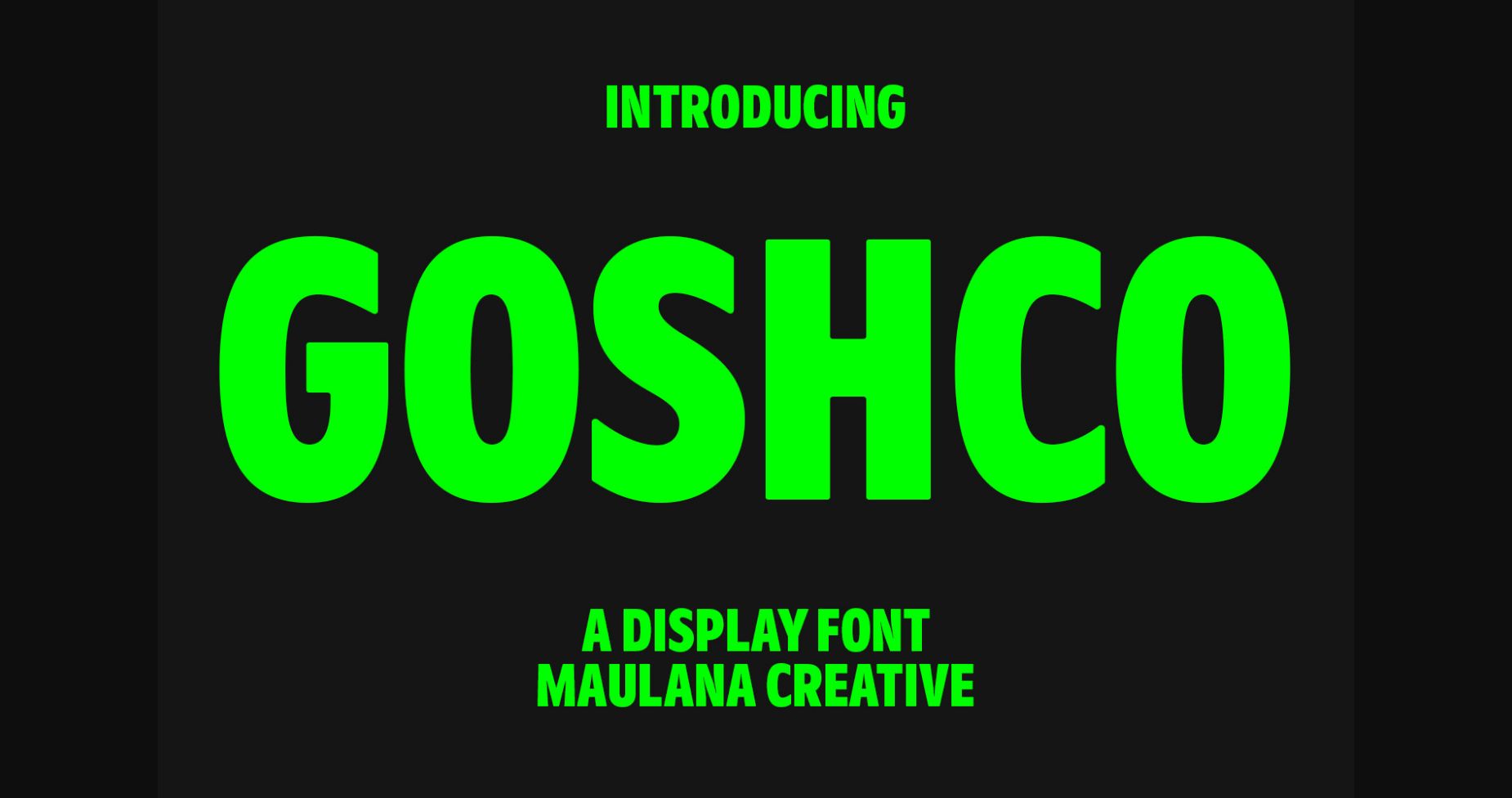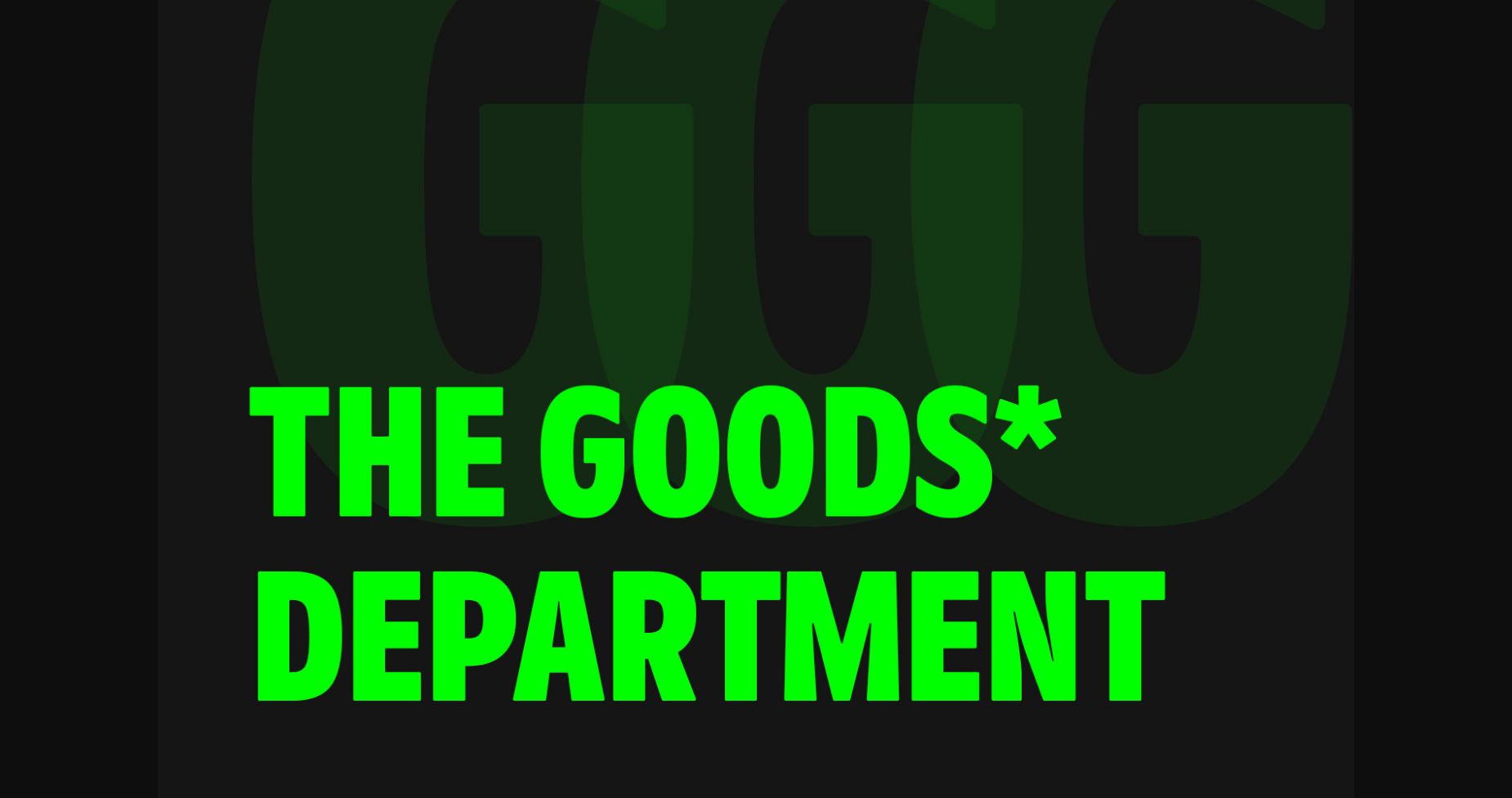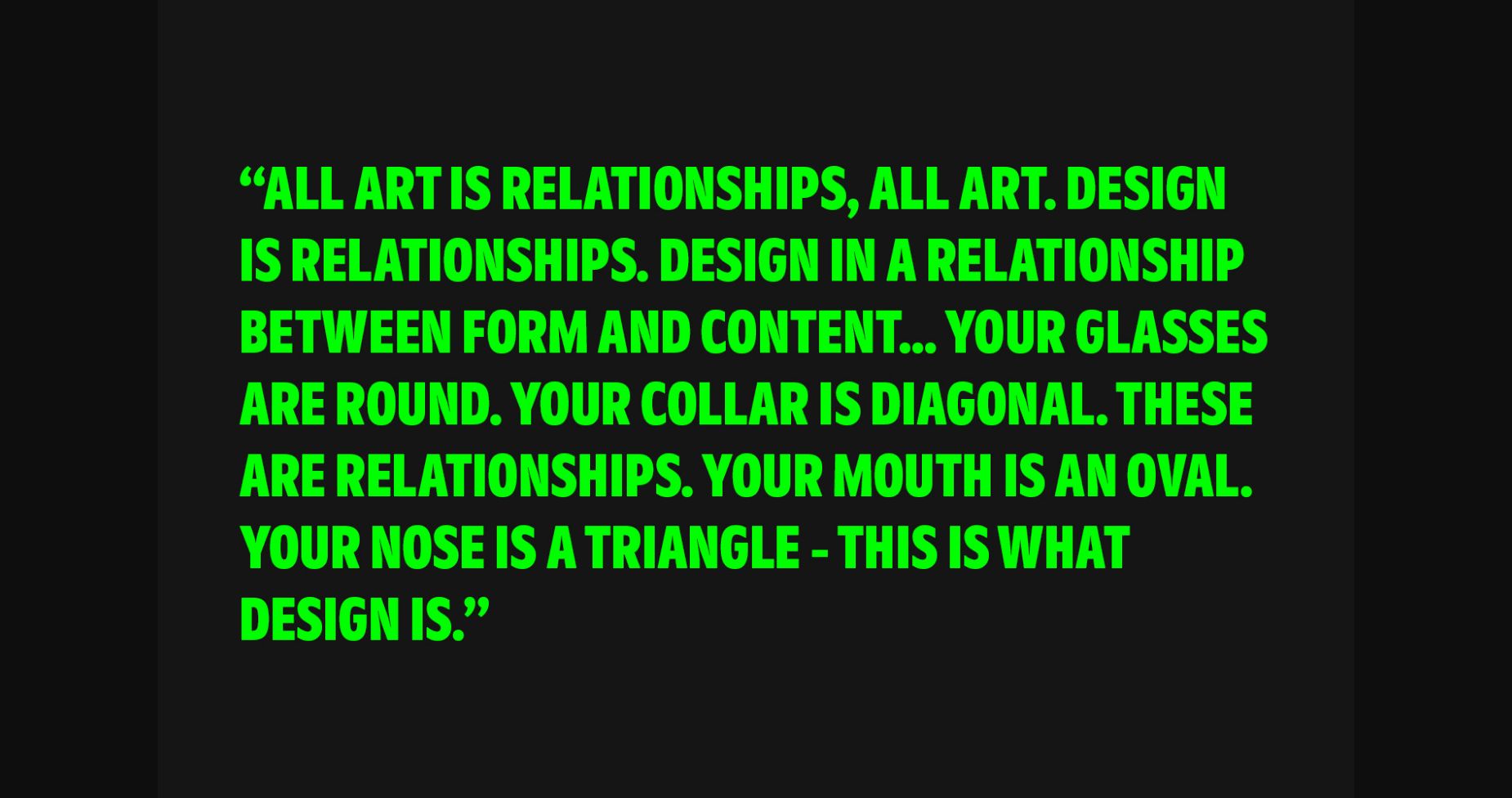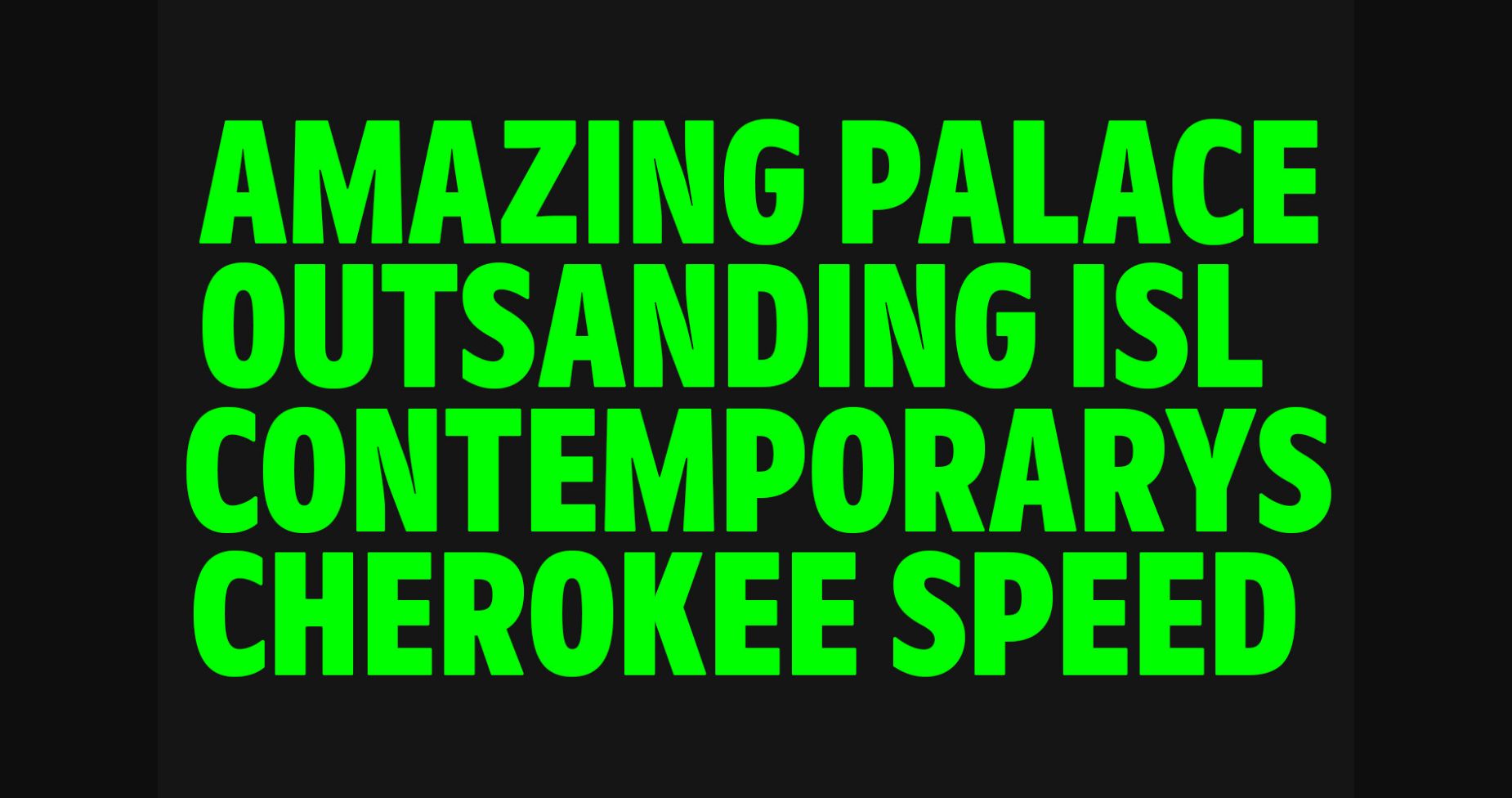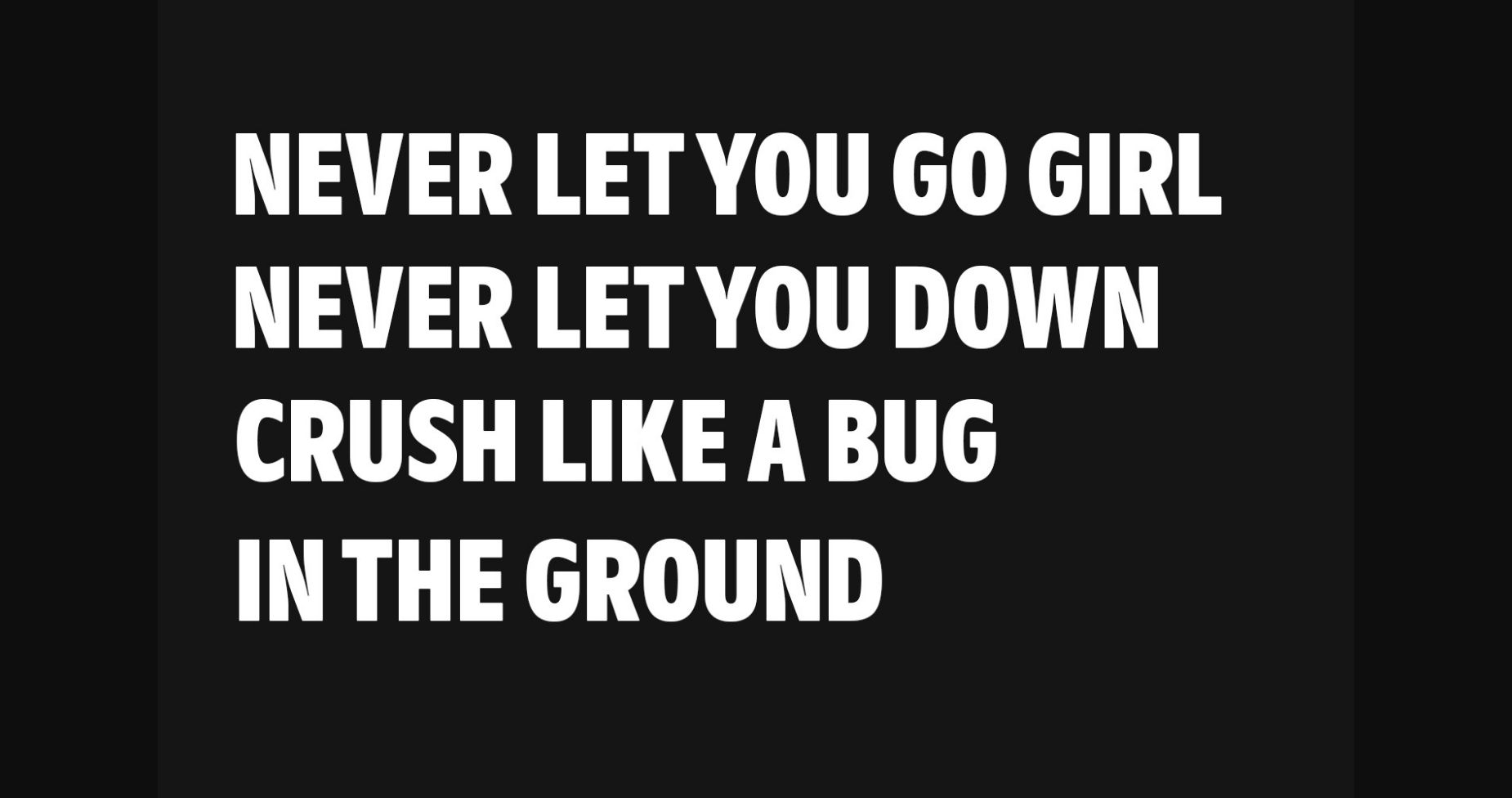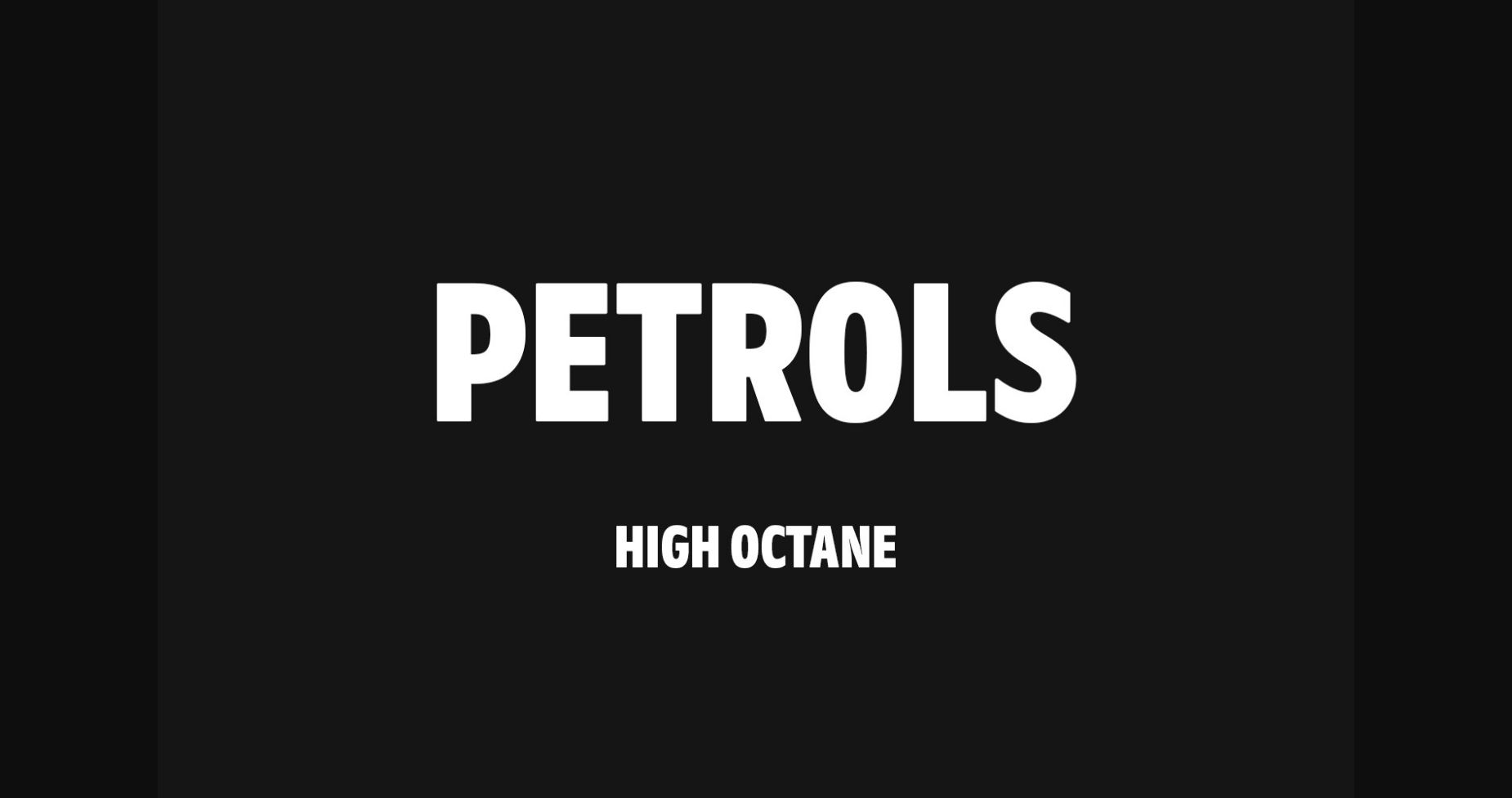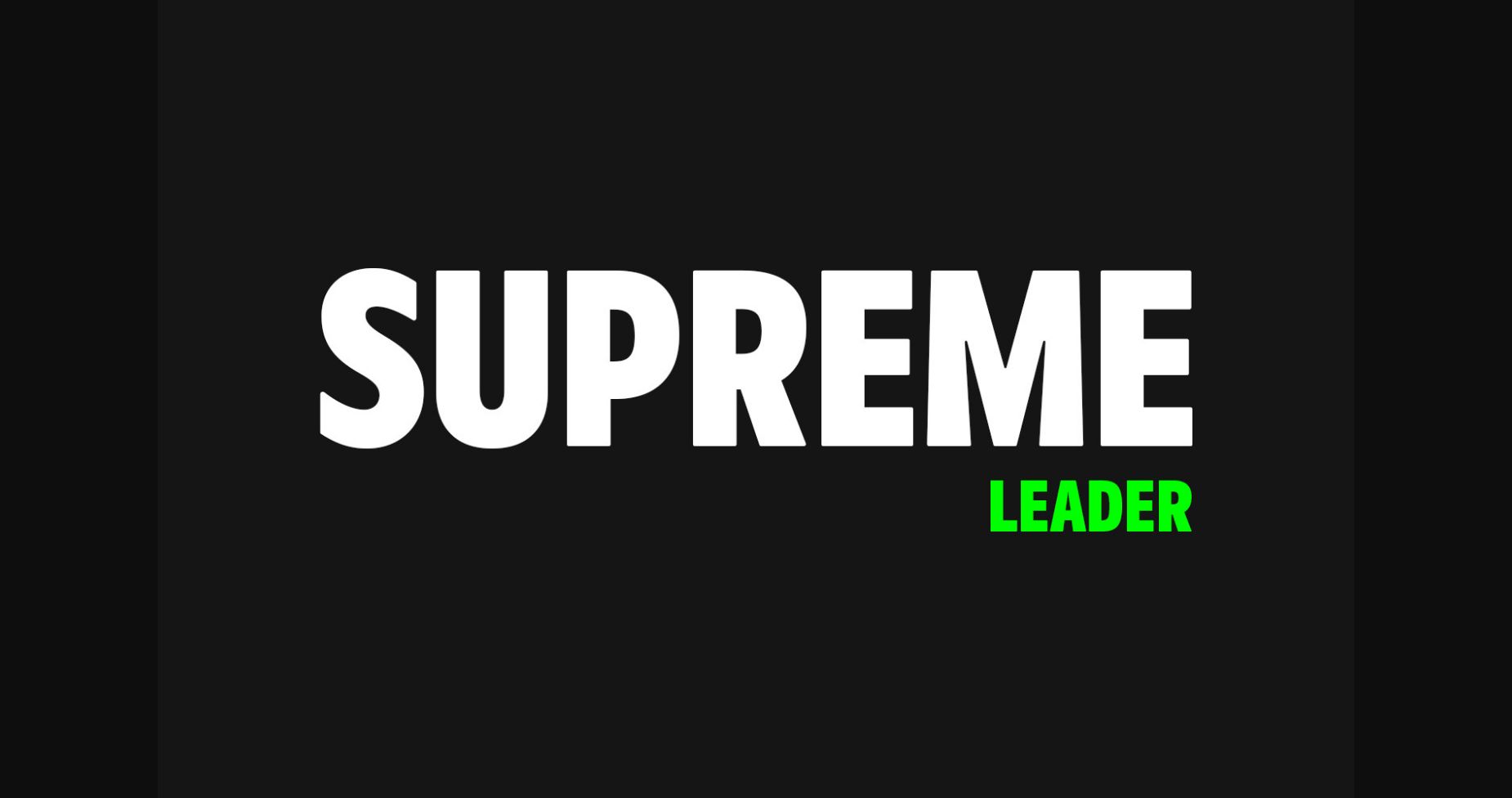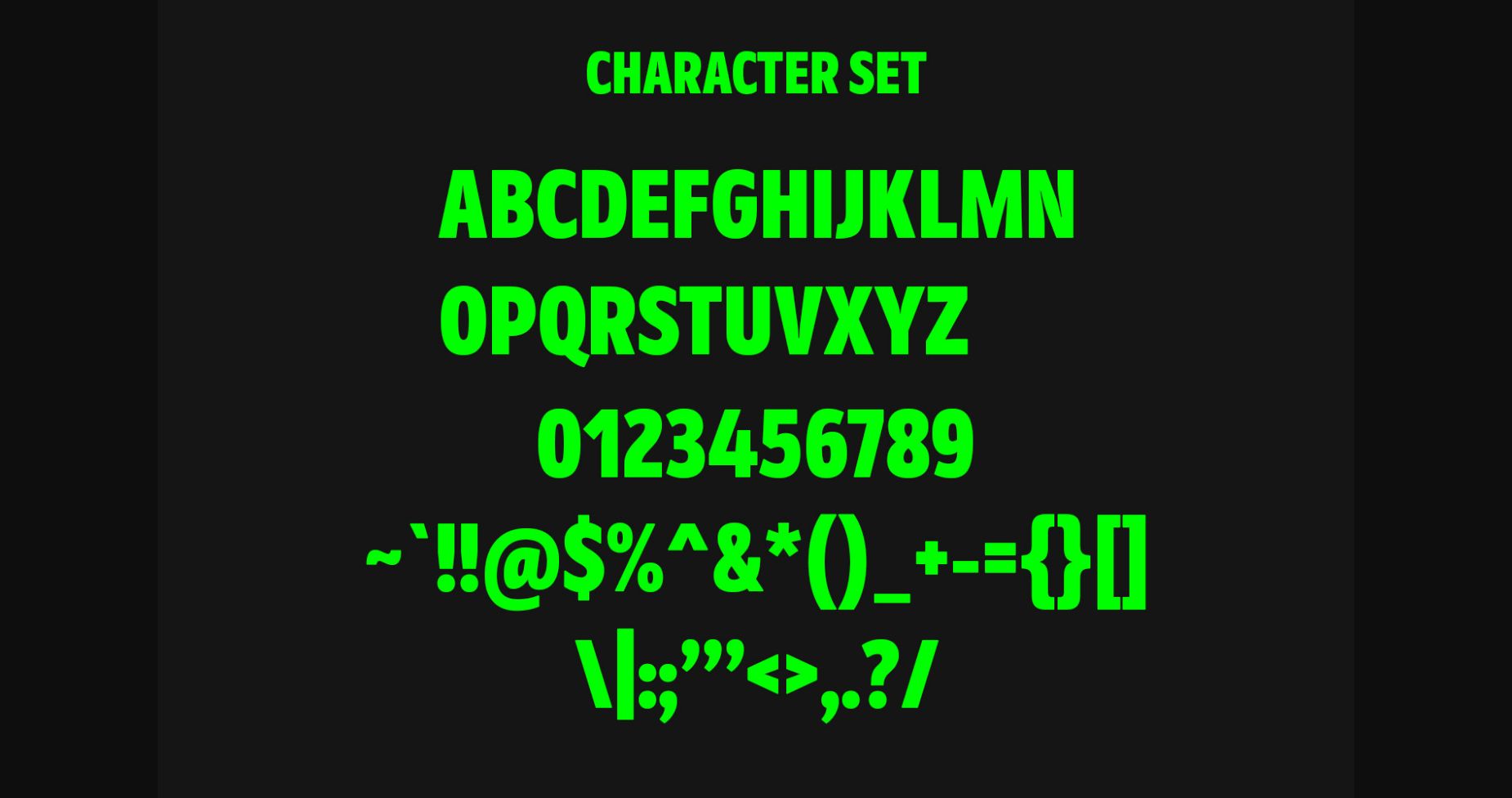
About Goshco Font
Strong, modern, and authentic, Goshco will bring a special and trendy vibe to each of your projects. No matter the topic, this font will be an incredible asset to your fonts’ library, as it has the potential to elevate any creation.